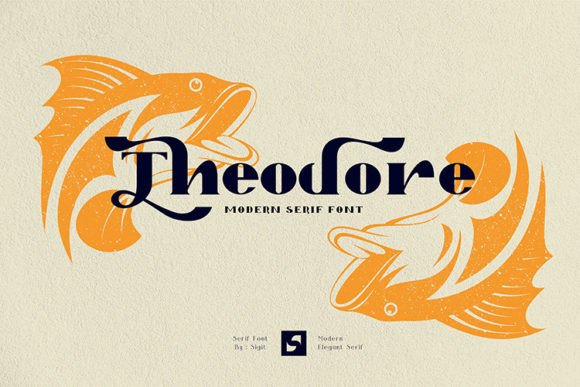
Introducing the Theodore Font, a mesmerizing blend of retro and modern serif font styles that will transport you to a world of nostalgic charm. Created by the talented sigit-ap, this bold serif font is a true masterpiece that is bound to captivate your heart and elevate your designs to new heights.
With its unique curvature of certain letters, Theodore Font stands out from the crowd, adding a touch of elegance and sophistication to any project. Whether you're designing vintage logos, creating stunning wedding invitations, or crafting eye-catching social media posts, this font is your perfect companion.
One of the key features of Theodore Font is its readability. Every letter has been meticulously crafted to ensure optimal legibility, making it a top choice for any project where clarity is essential. Your message will effortlessly shine through, leaving a lasting impression on your audience.
But that's not all! We've gone the extra mile to make your creative journey even more delightful. Theodore Font is PUA encoded, granting you effortless access to a vast collection of glyphs and swashes. Let your imagination run wild as you experiment with different styles and create truly unique designs that mesmerize and inspire.
Whether you're a professional designer or a passionate enthusiast, Theodore Font is a must-have addition to your font collection. Its versatility knows no bounds, making it suitable for a wide range of projects. From advertising campaigns that demand attention to vintage-inspired merchandise that exudes charm, Theodore Font has got you covered.